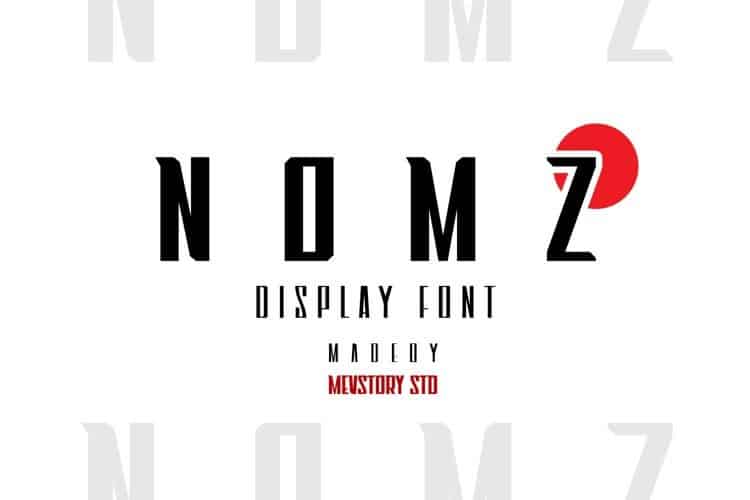
Nomz Display Font
Hello Everyone. Nomz Font is a modern wedge display font with sharp edges and unique lines. Inspired by combining a trendy look with a timeless one, this high contrast font will give character to any design element.